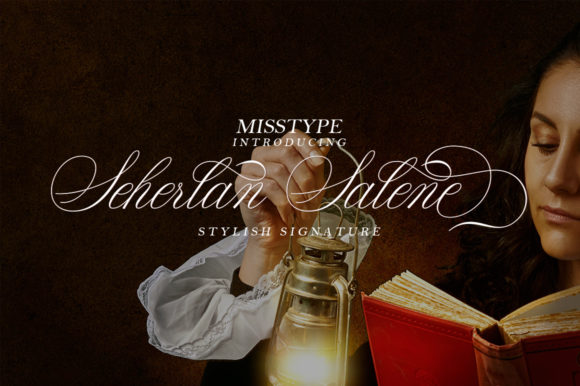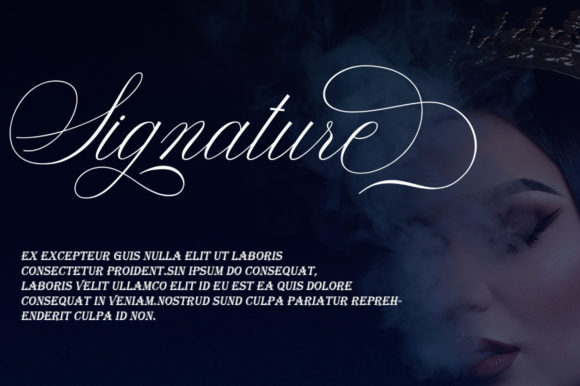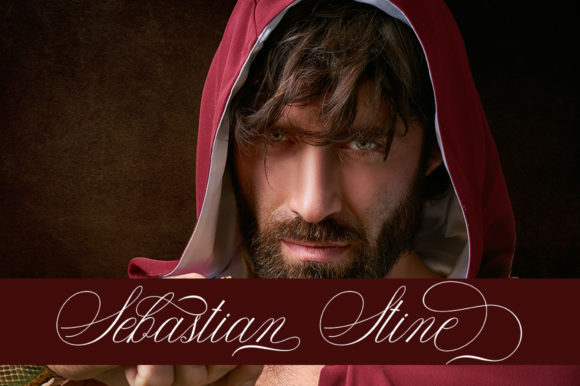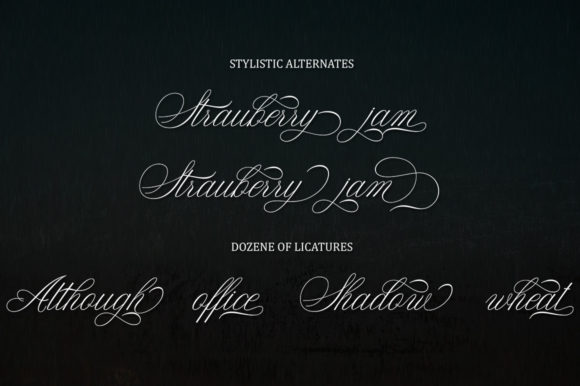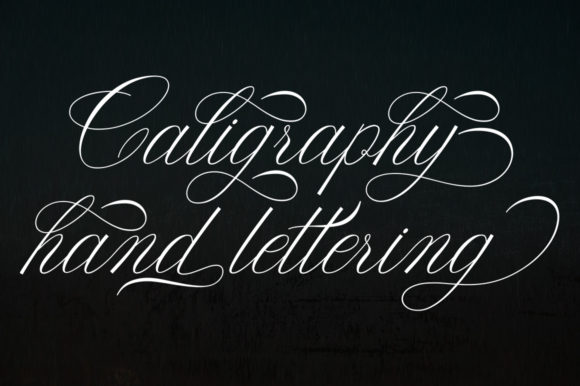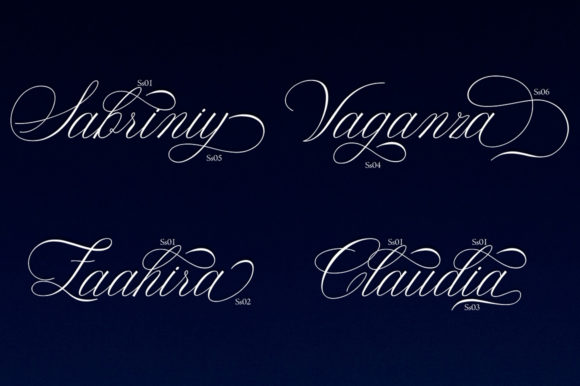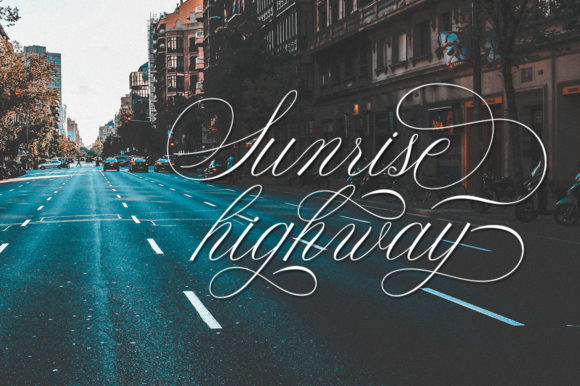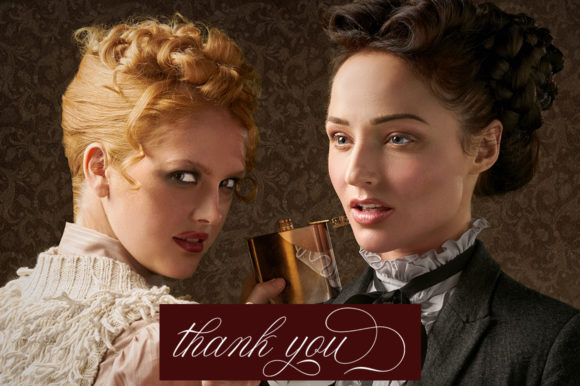
Seherlan Salene Font
About Seherlan Salene Font
Seherlan Salene is an amazing script font. It has a beautiful swoosh and swash that gives an elegant impression, while still being easy to read. It’s the perfect font to add a feminine and elegant touch to your design.
It’s perfect for weddings, business cards, logos etc.